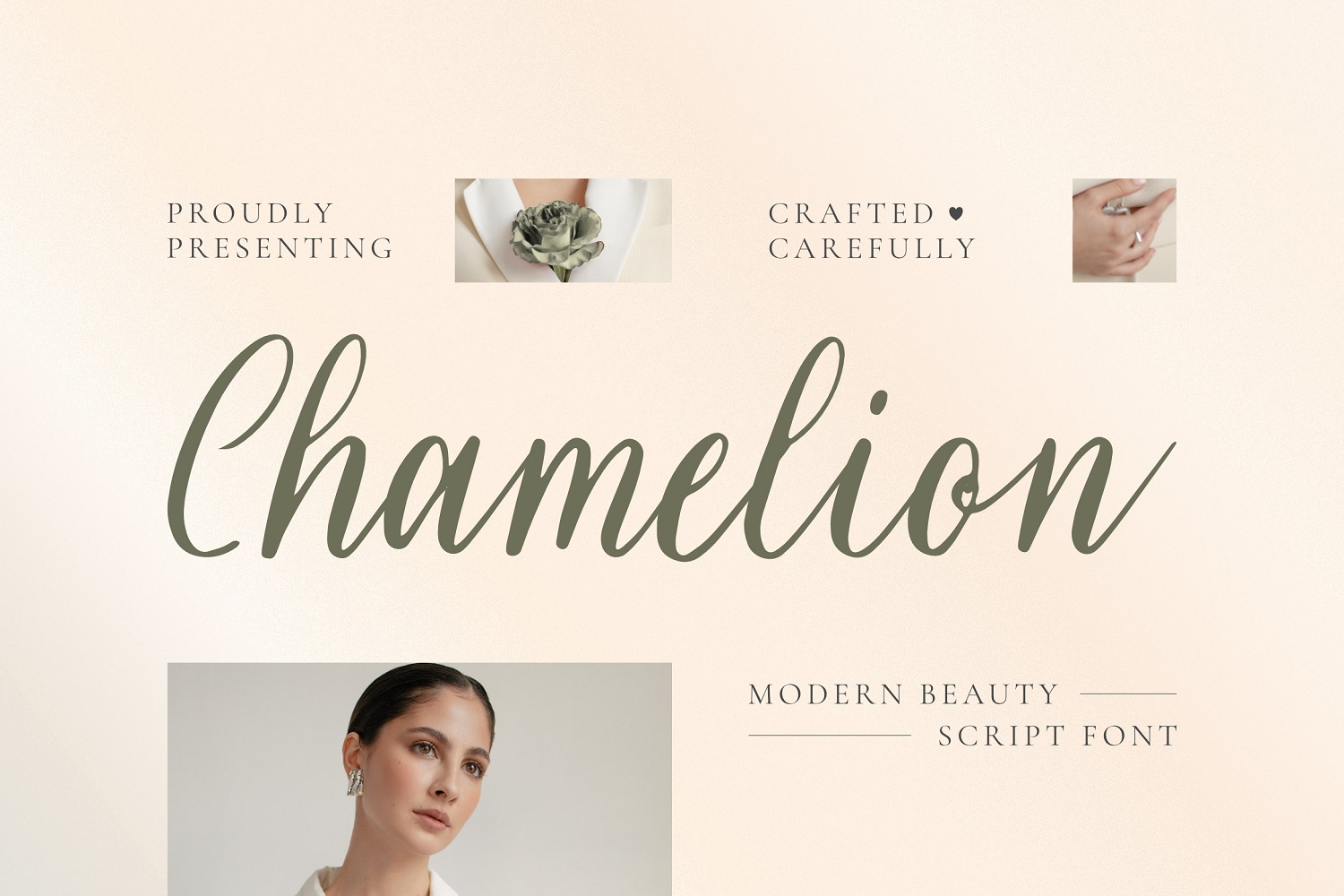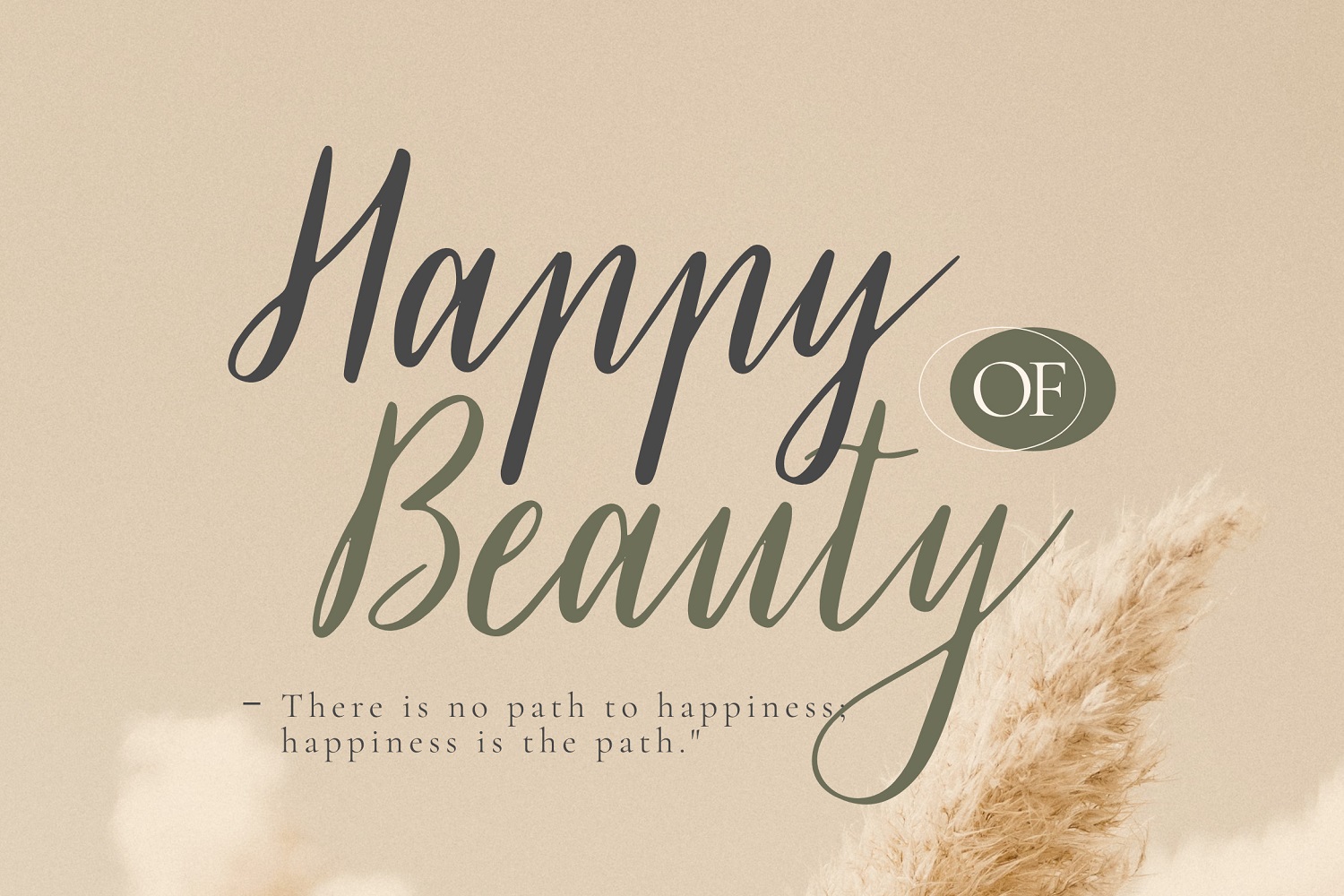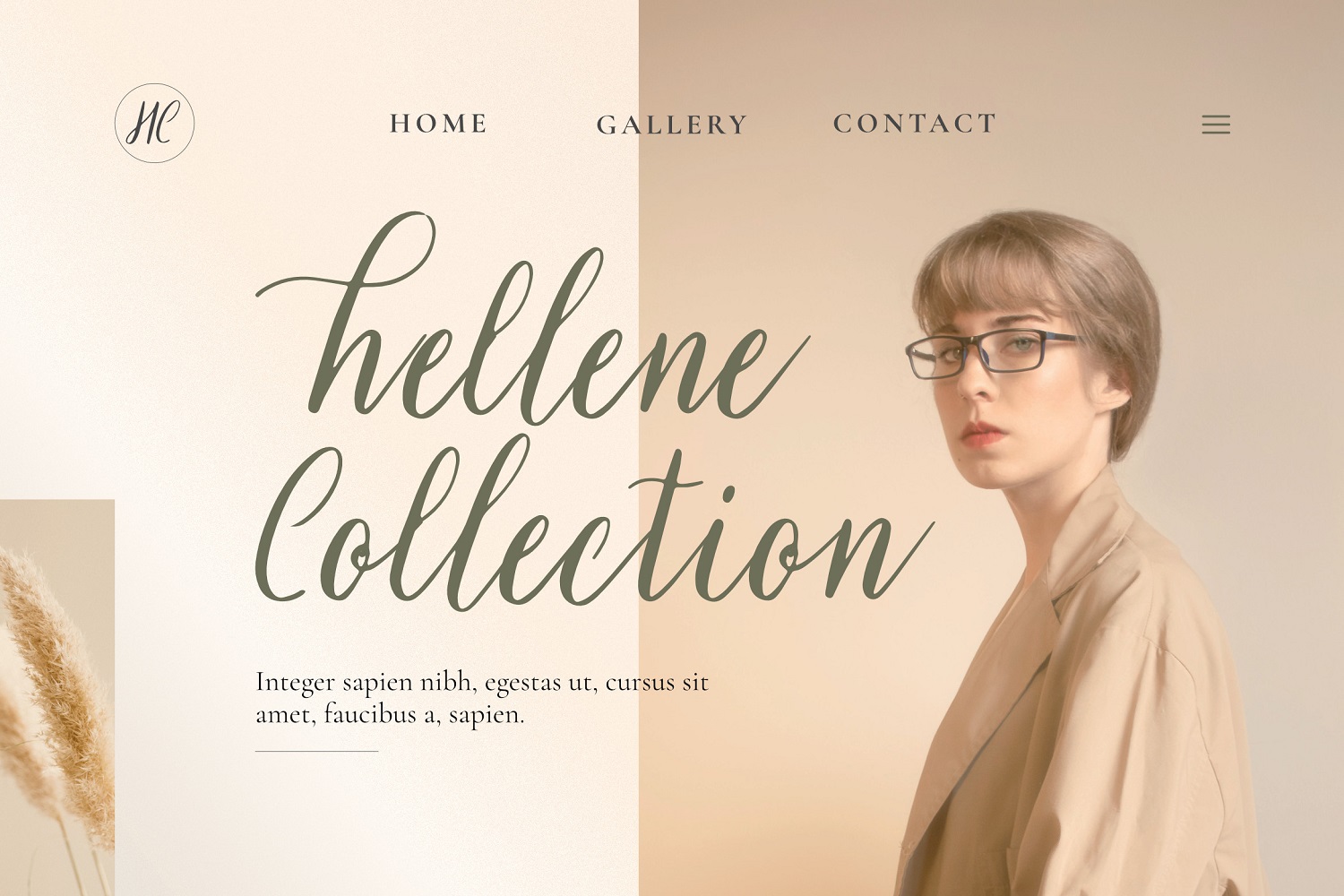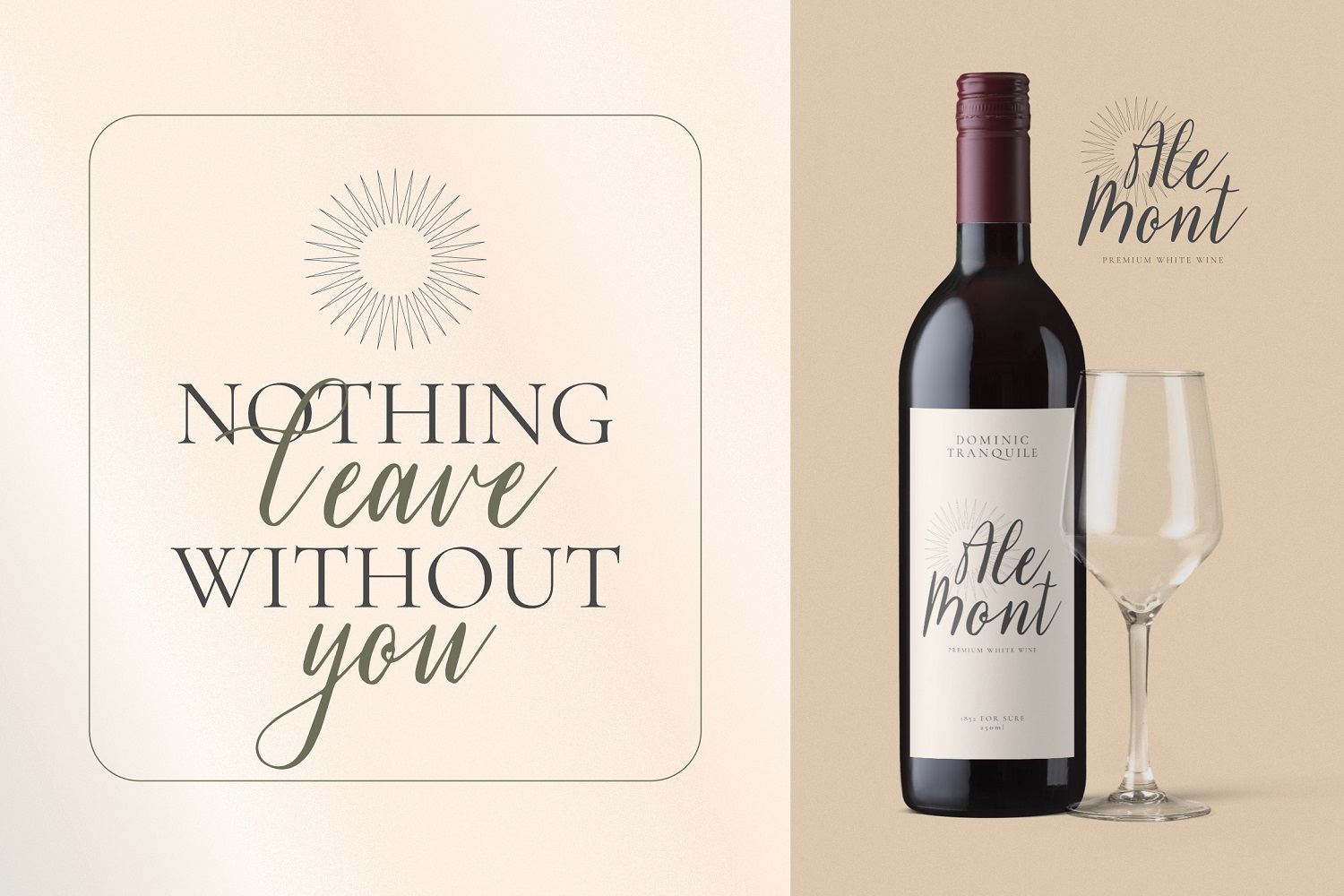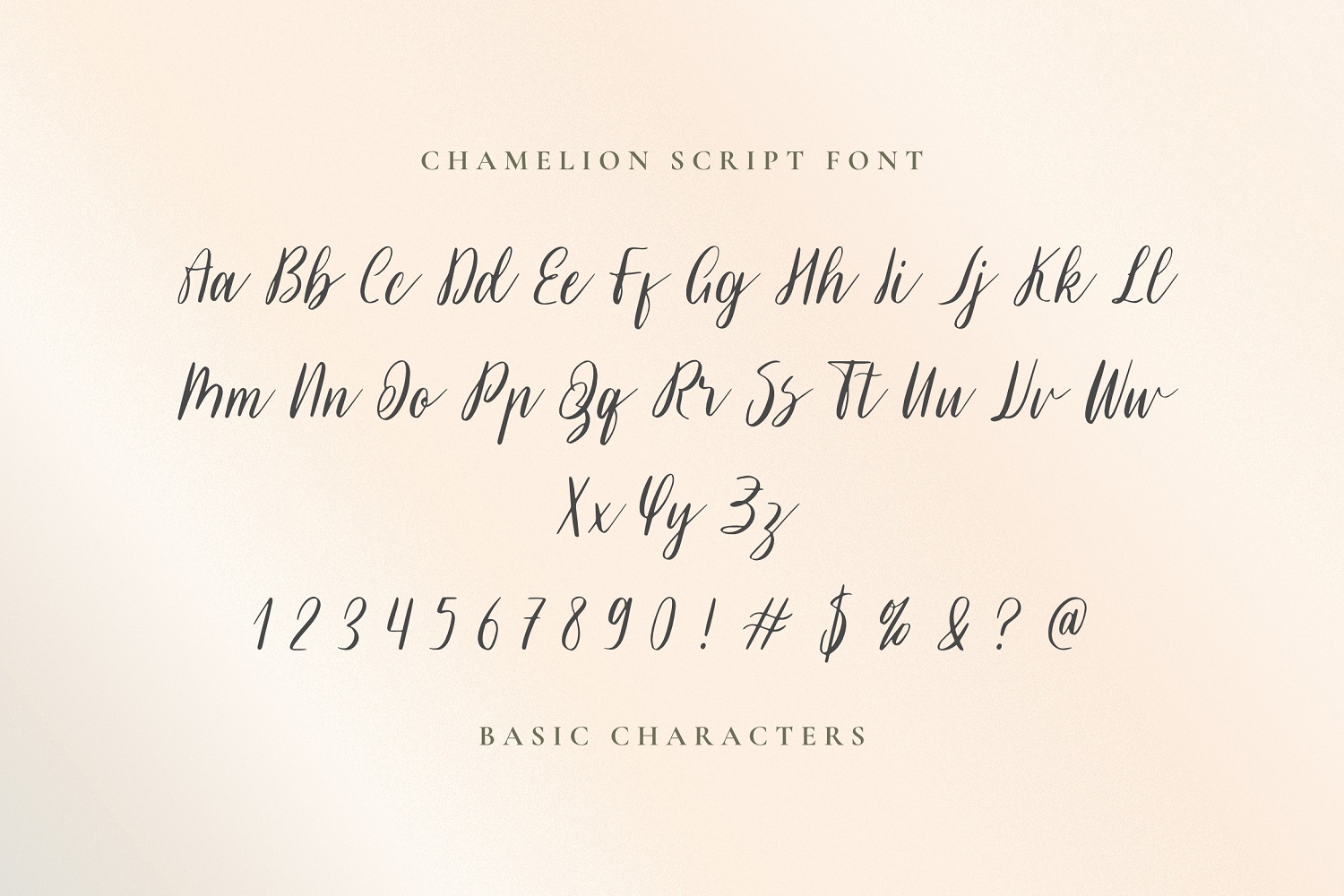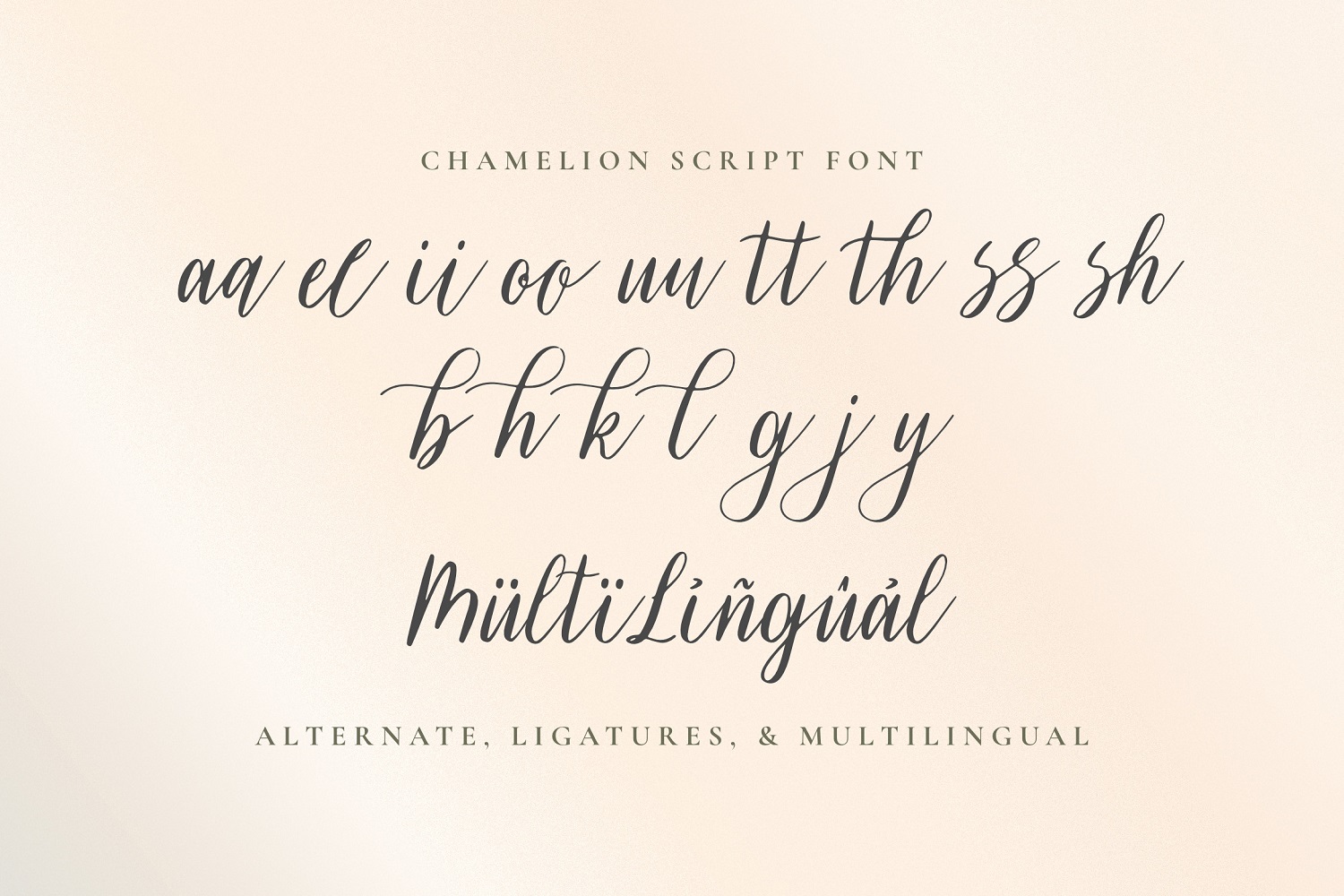
Introducing Chamelion, a modern script font crafted with care and elegance. This typeface offers a beautiful blend of sophistication and readability, making it perfect for upscale branding, fashion editorials, and elegant packaging. Each stroke flows naturally with delicate curves, evoking a sense of grace and femininity.
Chamelion includes a complete set of uppercase, lowercase, numbers, punctuation, ligatures, and multilingual support. It also offers stylish alternates to help you create personalized typography that feels both romantic and timeless. Ideal for wedding invitations, boutique logos, and modern branding projects.
Chamelion